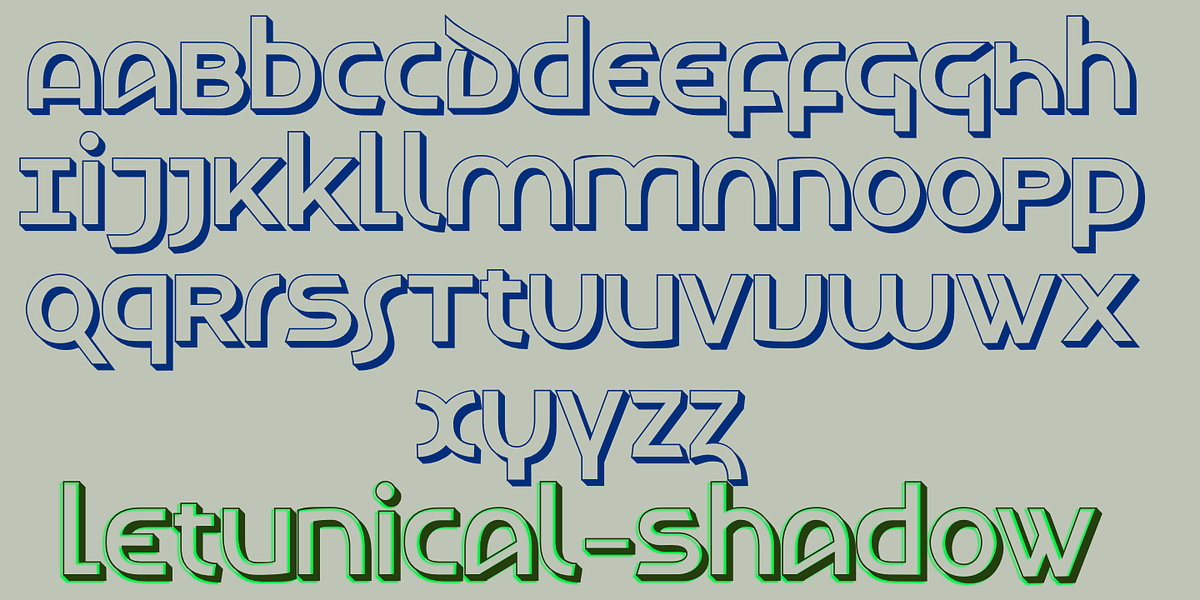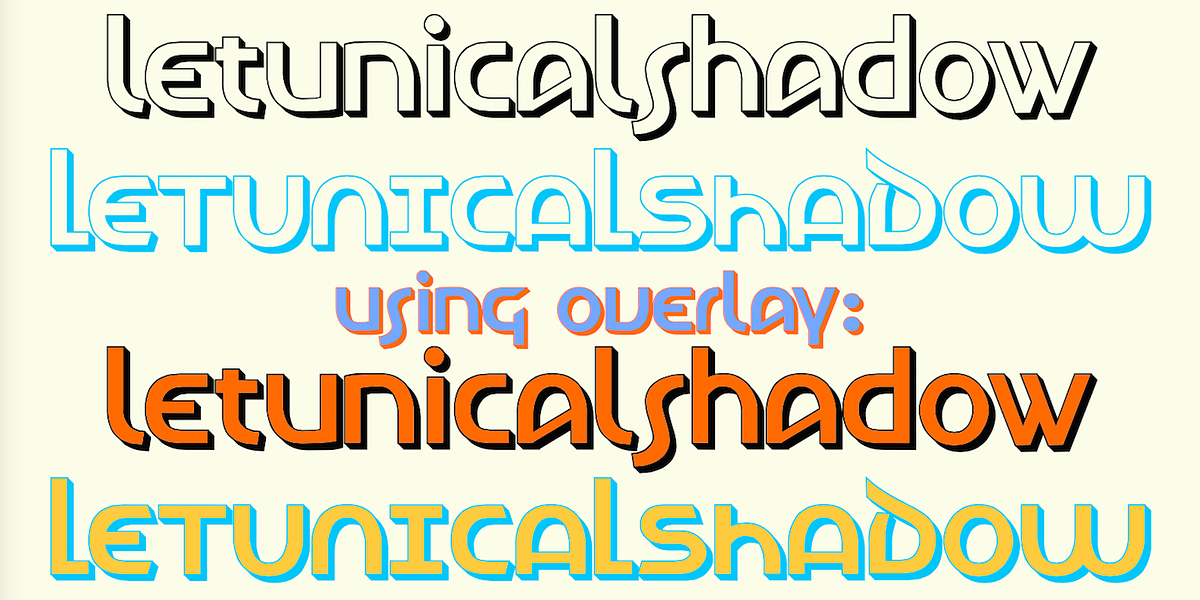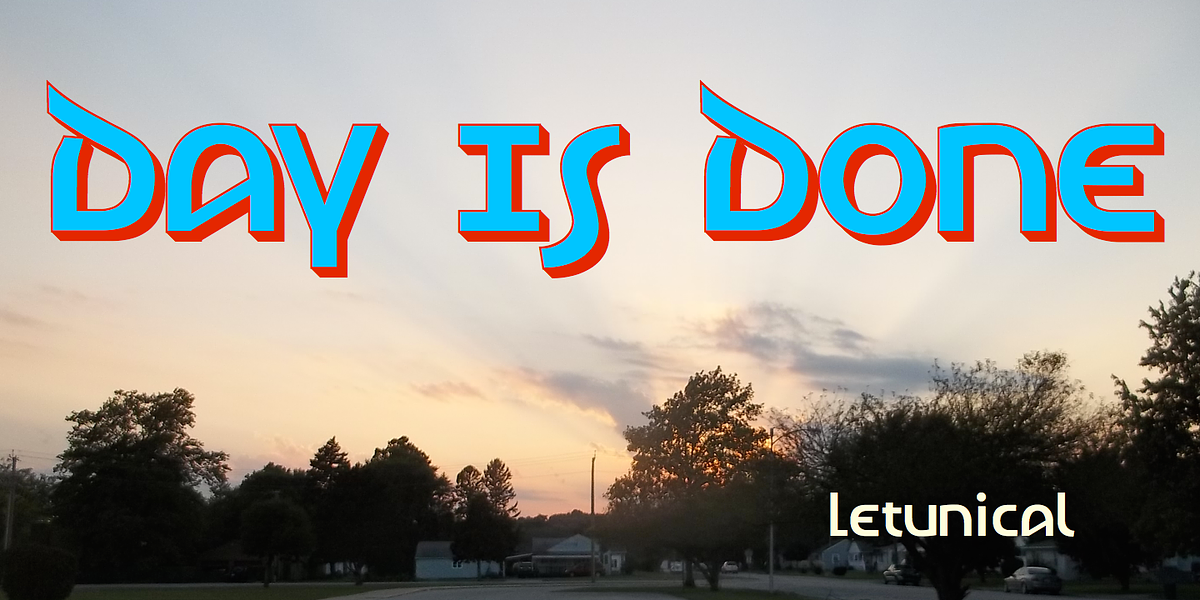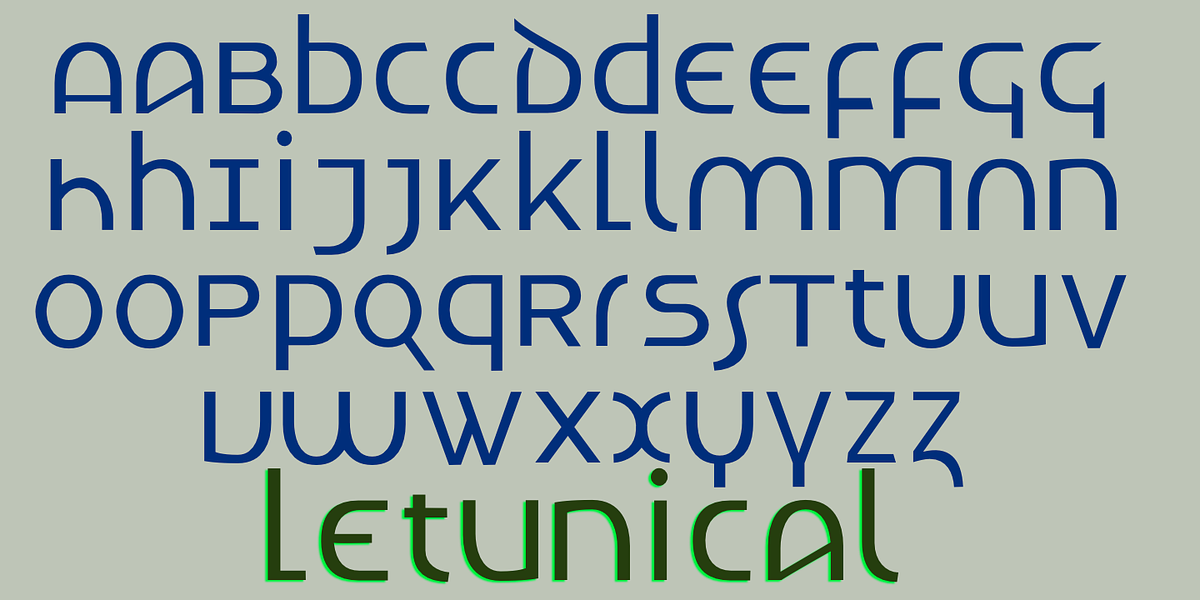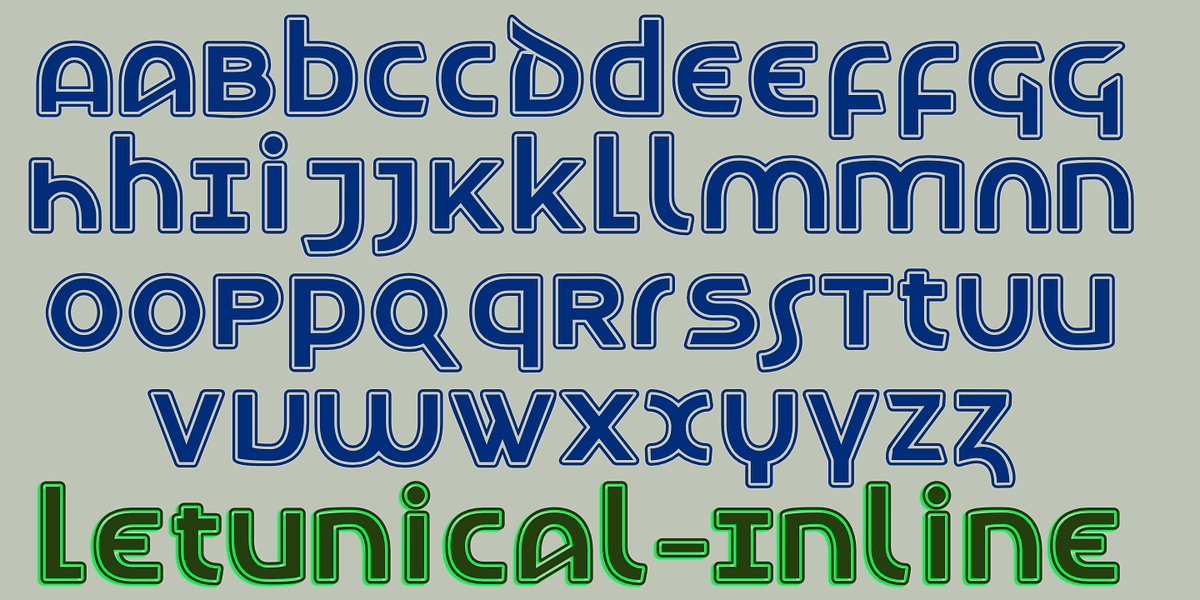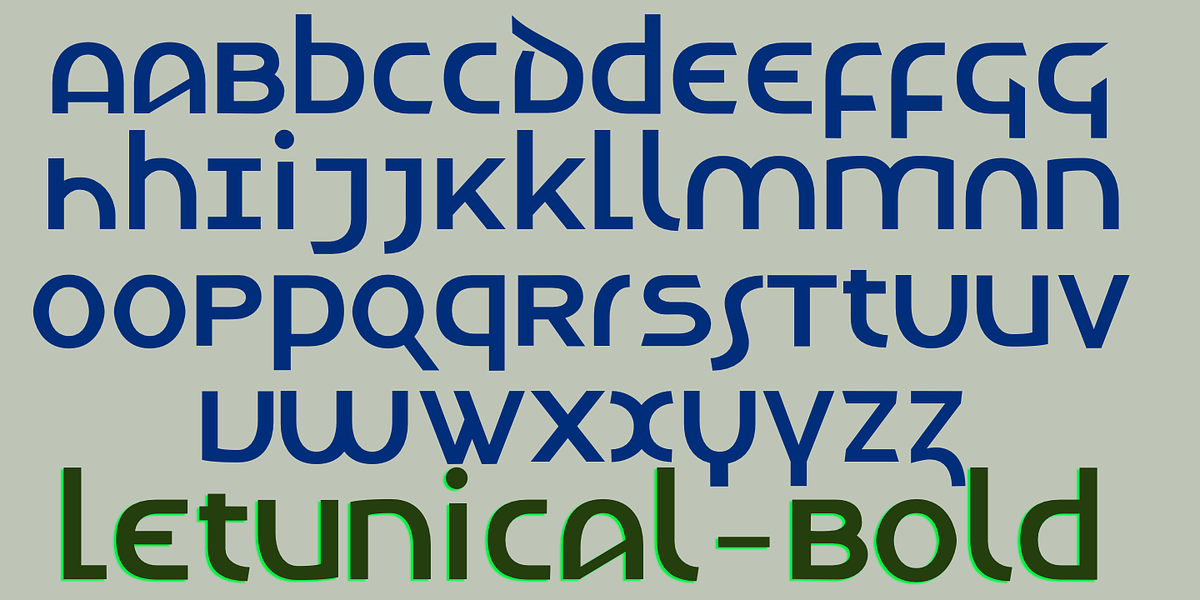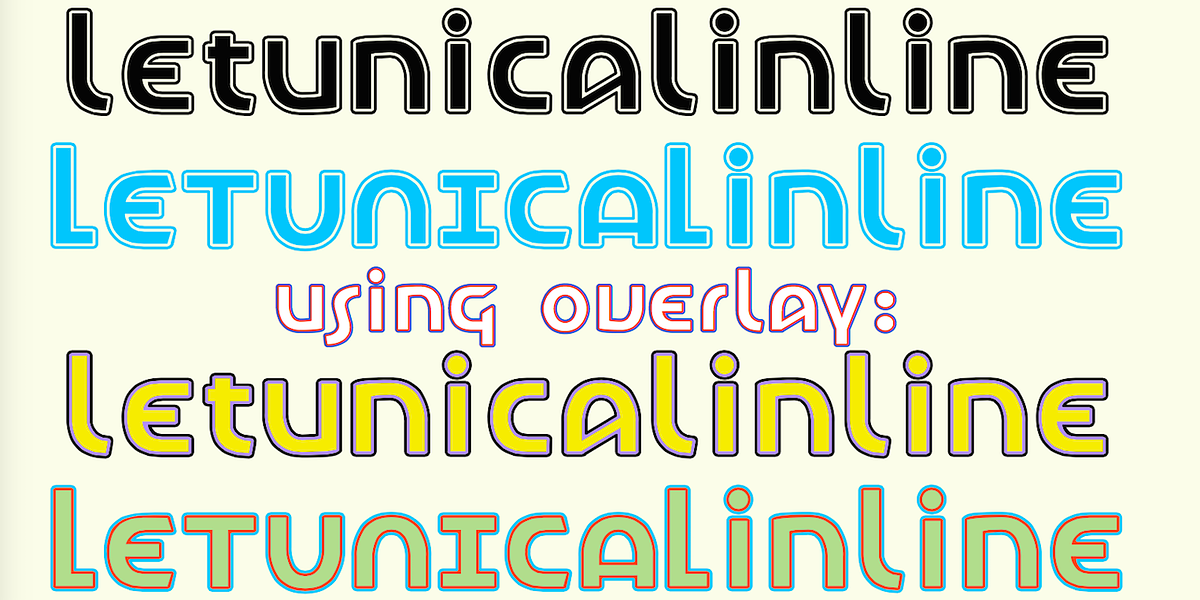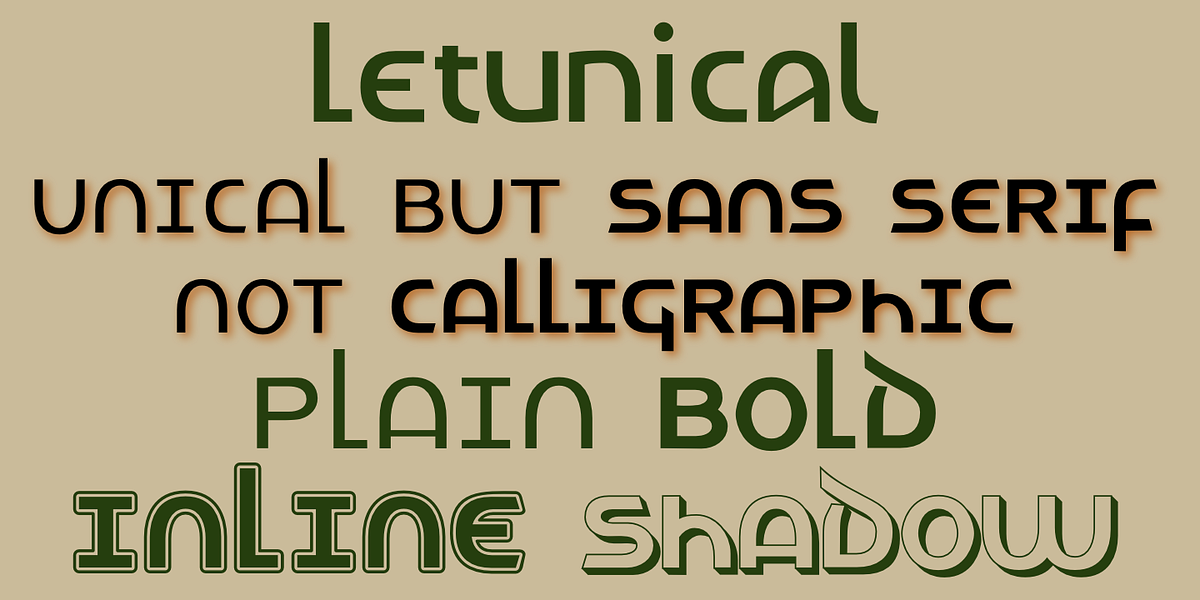
Letunical
Letuncial is a geometric sans-serif typeface that draws inspiration from uncial, a writing style prevalent in the early medieval period. Its distinctive feature is its unicase design, meaning it lacks traditional uppercase letters and instead utilizes two interchangeable sets of characters. The font family includes variations like 'Inline Overlay' and 'Shadow' designed to be layered with the base font for creating bicolored or tricolored letterforms.